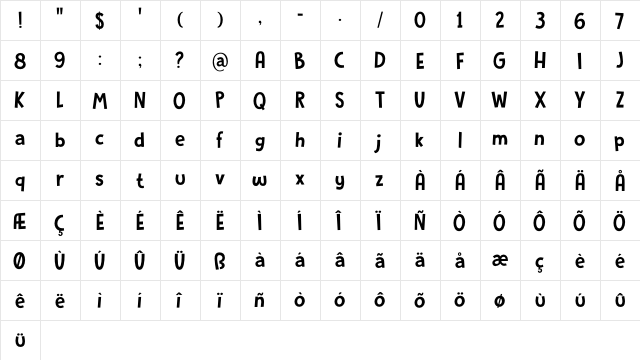
Original Quality DEMO Regular
| Foundry | David Kerkhoff |
| Designer | David Kerkhoff |
Design Context for Original Quality DEMO Typeface
Original Quality DEMO takes a measured approach to typography — its balanced proportions and neutral character make it a reliable workhorse for both digital and print work.